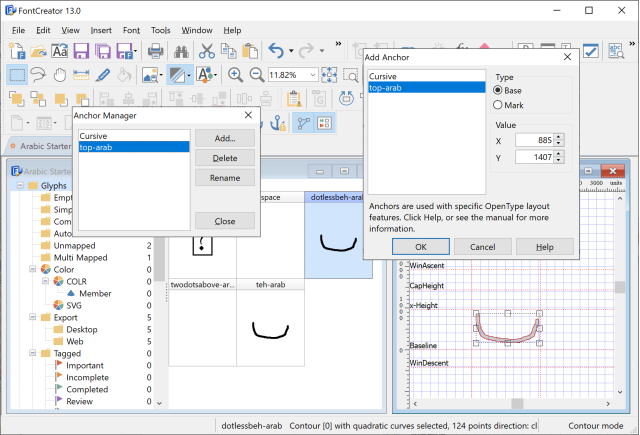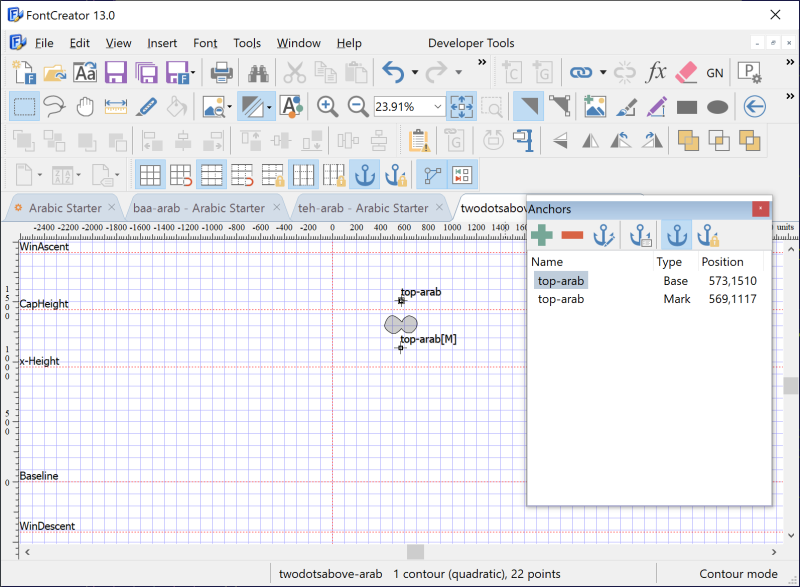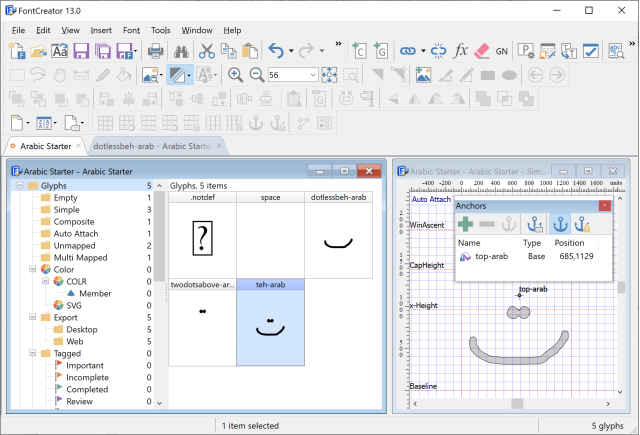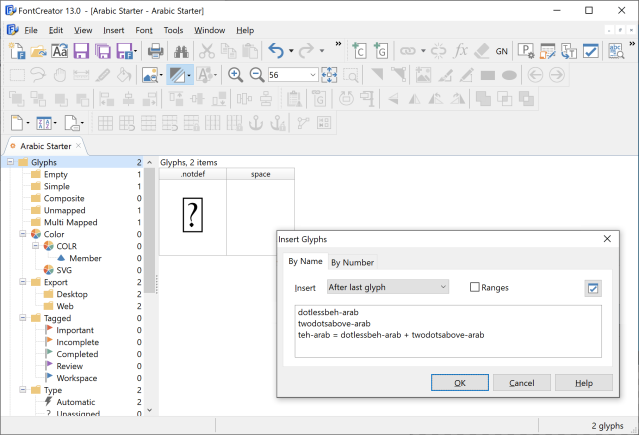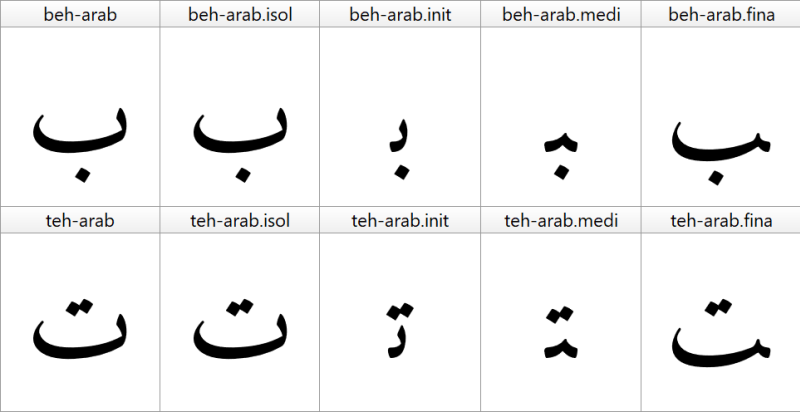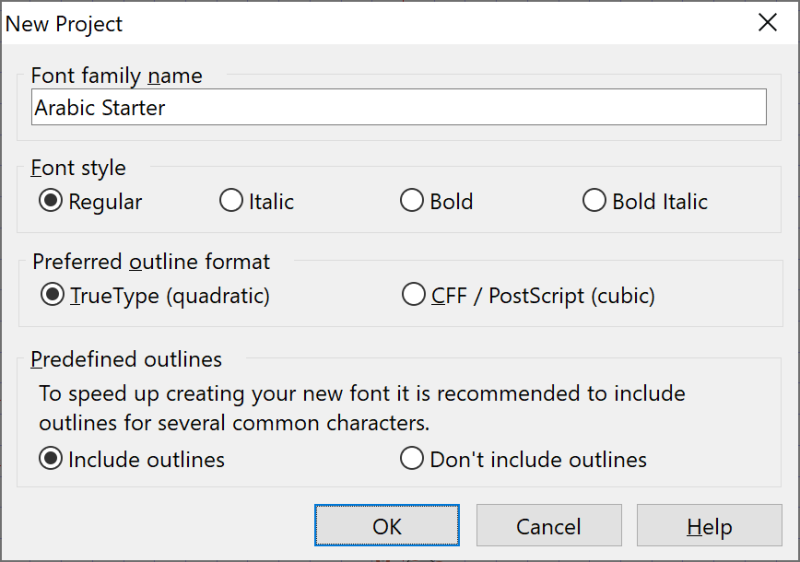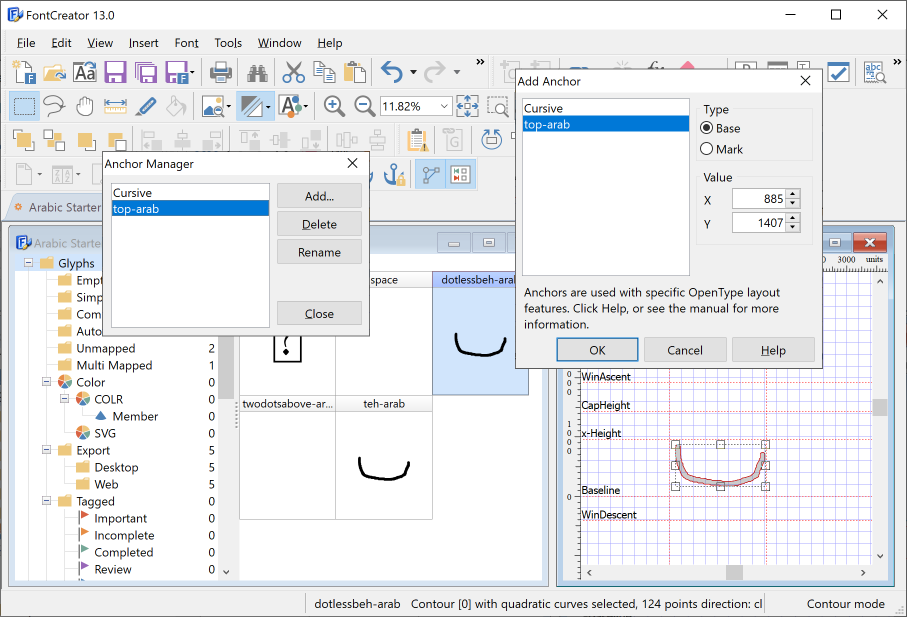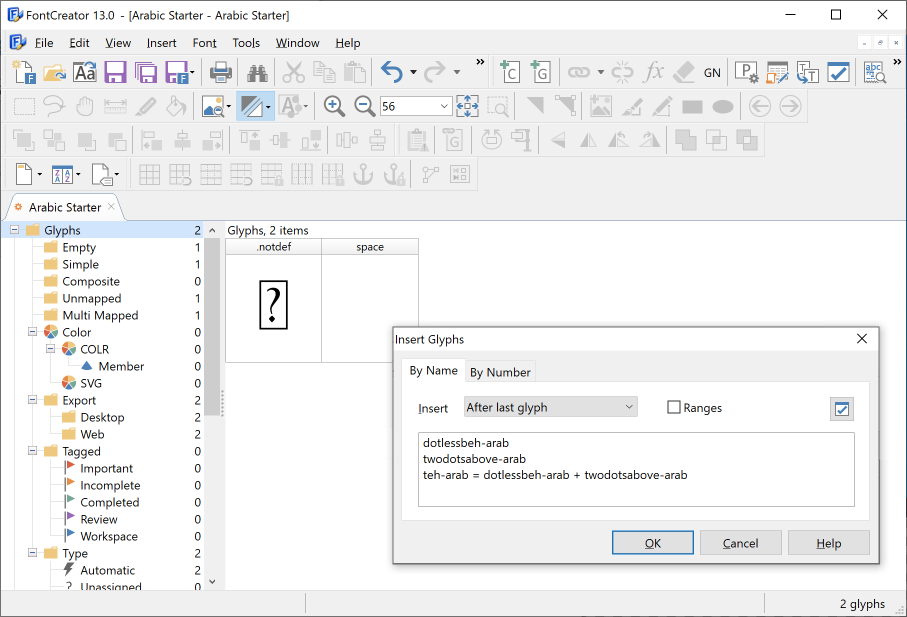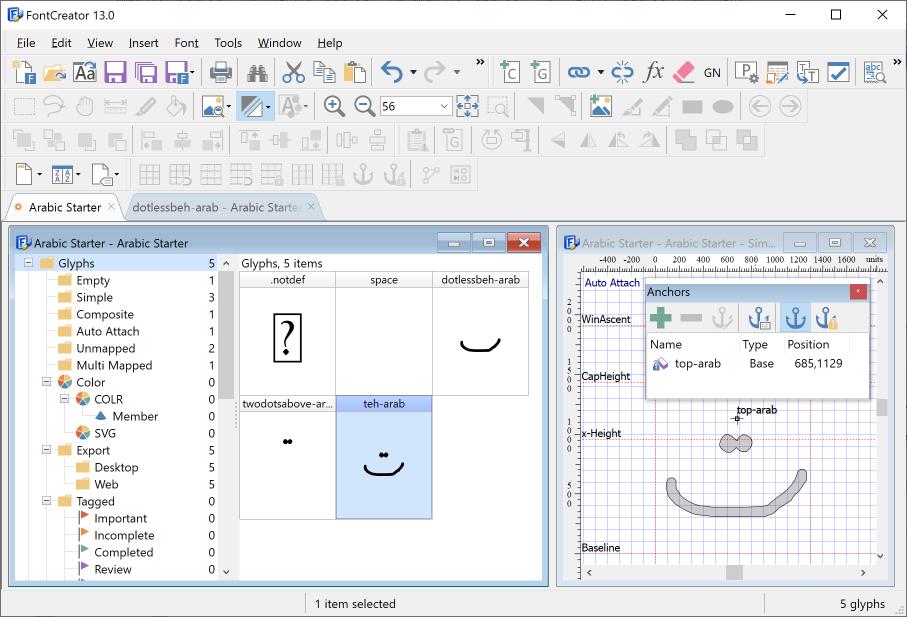
Arabic Font Design
Level: Advanced / Specialist. This tutorial assumes you're already comfortable drawing glyphs and working with anchors and OpenType features.
FontCreator OpenType Designer preview showing an Arabic word with its letters joined, labelling the isolated, initial, medial and final contextual forms.
An Arabic word in the OpenType Designer preview area showing letters joined into a connected word, with isolated, initial, medial and final forms labelled.
This tutorial is aimed at FontCreator but a lot of it applies to font design in general. Like most font editors, this font editor is most often used for Latin-based fonts — but it also ships the advanced tools needed for Arabic font design and related scripts, covering Arabic, Farsi, Malay, Sindhi, Uighur, and Urdu. The OpenType Designer, FontCreator's native shaping engine, and interactive OpenType layout proofing together let you create, edit, and test complex-script fonts without leaving the program.
Note: Arabic is a connected, right-to-left script. That means two big jobs beyond drawing the letters: choosing the right contextual form of each letter depending on its neighbours, and positioning marks (dots, vowel signs) on each form. FontCreator handles both with contextual-form features and anchors.
Contextual forms: isolated, initial, medial, final
Because most Arabic characters connect to their neighbours, a letter's visual shape depends on its context in the word. In general a letter has four contextual forms:
• isolated — used when the letter doesn't join anything (a non-joining context).
• initial — used at the start of a joined group of letters.
• medial — used in the middle of a joined group.
• final — used at the end of a joined group.
So the same underlying letter can look quite different depending on where it lands. Since most letters come in all four forms, an Arabic font needs a lot of glyphs — but many of them reuse outlines from one another, and FontCreator helps you build those with composite glyphs and anchors rather than redrawing every shape.
A single Arabic letter shown in four contextual forms — isolated, initial, medial and final — each labelled in FontCreator.
One Arabic letter shown four times — isolated, initial, medial, final — side by side with each form labelled.
The contextual forms are wired up through OpenType layout features, conventionally named with the dotted-suffix naming FontCreator understands:
• isol — isolated form
• init — initial form
• medi — medial form
• fina — final form
Glyphs follow the matching naming convention: an isolated teh-arab and its forms teh-arab.init, teh-arab.medi, teh-arab.fina. FontCreator's automatic feature generation reads those suffixes and maps .init / .medi / .fina / .isol → the init / medi / fina / isol features — no manual wiring needed. Name the forms correctly and the generator connects each one to the right feature for you.
Build the base alphabet (worked example: teh-arab)
We'll create a new font, Arabic Starter. The new font comes with 200+ (mostly Latin) characters; you'd usually keep them, but to keep this example clean we remove all but the first two and add Arabic letters manually.
FontCreator uses smart glyph naming, so if you know the glyph names you can add them quickly through Insert Glyphs. We add teh-arab (the isolated form), and — because we want it to reuse other glyphs — its building blocks too. Make sure Ranges is not checked, since that conflicts with glyph names that contain hyphens.
`` dotlessbeh-arab twodotsabove-arab teh-arab = dotlessbeh-arab + twodotsabove-arab ``
This composes teh-arab from a dotless base body plus a two-dots mark, so editing either piece updates the letter.
1. Add outlines to the glyphs. Click the Free Draw icon to quickly sketch an outline (there are more precise ways, but Free Draw is fastest for a first pass).
2. When you're happy, click Convert to contours.
3. Adjust the right side-bearing if needed by dragging the right-most vertical dotted line.
FontCreator Glyph Edit window showing the dotlessbeh-arab outline sketched with the Free Draw tool before conversion to contours.
The dotlessbeh-arab body drawn with Free Draw in the Glyph Edit window, before converting to contours.
Anchors and mark positioning
A mark in Arabic (a dot group, a vowel sign) must sit in the right place on each base letter and on each contextual form. FontCreator positions marks with anchors — named attachment points you put on bases and marks — rather than by hardcoding coordinates.
How do I check that the shaping actually works? Type Arabic text into the OpenType Designer's preview to see the letters join live, then use the Proofing window to step through each lookup and click any glyph to see which lookup shaped it. This interactive proofing is the fastest way to find and fix shaping problems.